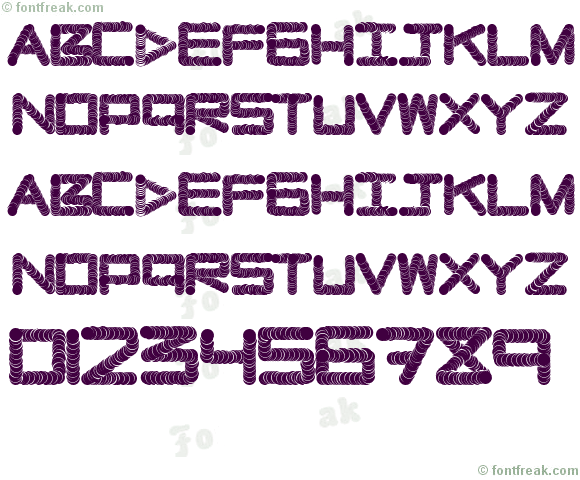
NaughtyPipe
NaughtyPipe by XEROGRAPHER FONTS is a captivating display typeface that stands out with its unique visual characteristics. This font features a playful design, characterized by its rounded, pipe-like strokes that create a sense of whimsy and fun. The consistent stroke weight combined with gentle curves and circular elements gives it a light-hearted feel, making it an excellent choice for creative projects that seek to engage and amuse. The spacing is well-balanced, allowing for easy readability while maintaining an artistic flair that draws the eye.
The NaughtyPipe font is particularly well-suited for a variety of applications. It shines in wedding invitations, where its playful charm can add a touch of personality to the big day. Additionally, it works wonderfully for movie posters, especially for comedies or family-friendly films, making titles pop with its distinctive style. Restaurant menus can also benefit from its unique aesthetic, providing a memorable experience for diners. Content creators and graphic designers will find it invaluable for social media graphics, where eye-catching typography is essential to stand out in crowded feeds.
Targeting graphic designers, small business owners, and content creators, NaughtyPipe offers a fresh and lively alternative to standard typefaces. It encourages creativity and allows users to express their brand's personality through vivid typography.
What sets NaughtyPipe apart is its ability to balance fun and functionality. Its distinctiveness makes it memorable, while its readability ensures that it serves its intended purpose effectively. Whether you are looking to add a playful touch to your projects or simply seeking a unique font, NaughtyPipe font free download is an excellent choice for anyone looking to elevate their design work.